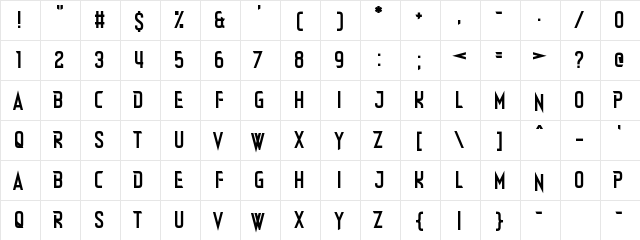
Dealer Strikes Straight Regular
Design Context for Dealer Strikes Straight Typeface
Dealer Strikes Straight takes a measured approach to typography — its balanced proportions and neutral character make it a reliable workhorse for both digital and print work.
Pro Tip: Use Dealer Strikes Straight in both headline and body roles to test its range before committing to a single application.